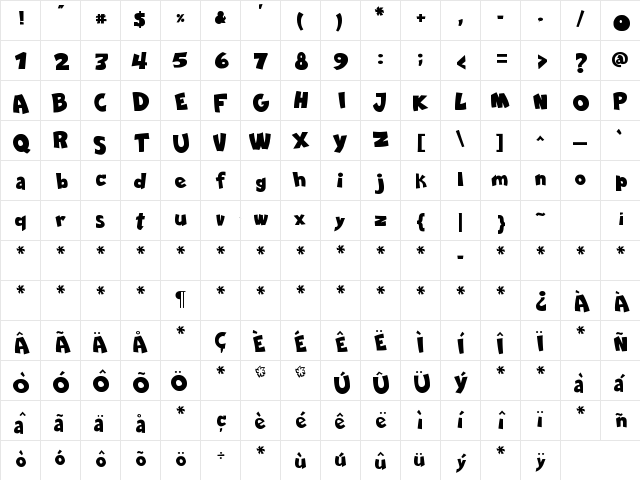
Complete Comica BD Bold Regular glyph index. Displaying only characters natively supported by Comica BD Bold Regular font.
Comica BD Bold has an approachable, lighthearted character - its loose, expressive forms are well-suited to children's content, casual branding, and fun-first design.
Font Pairing: Pairs well with a rounded or humanist sans for body copy, maintaining the friendly tone without relying on Comica BD Bold to carry extended reading.
Pro Tip: Use Comica BD Bold at larger display sizes where its expressive character can land. Pair with a clean, simple sans for body copy to maintain readability.